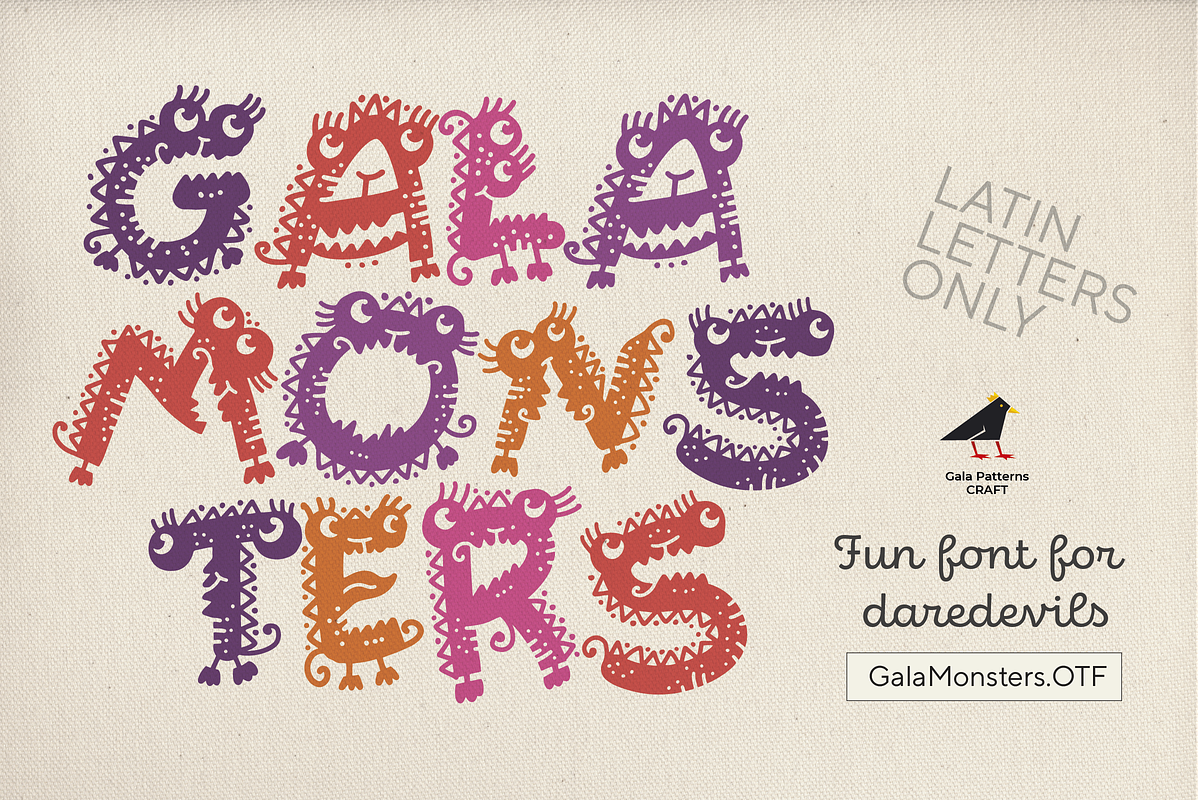
Gala Monsters – Cute Display Font Free Download
Gala Monsters – Cute Display Font Free Download is a playful and quirky display typeface designed to bring fun and charm to your creative projects. With its rounded edges, bubbly letterforms, and cheerful personality, this font is perfect for children's books, party invitations, toy branding, and any design that calls for a lighthearted, cute vibe.
The bold, friendly characters and delightful details make Gala Monsters a perfect choice for projects that need to catch the eye while still feeling approachable and joyful.